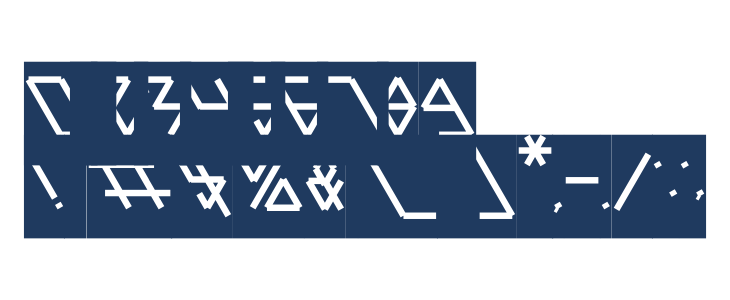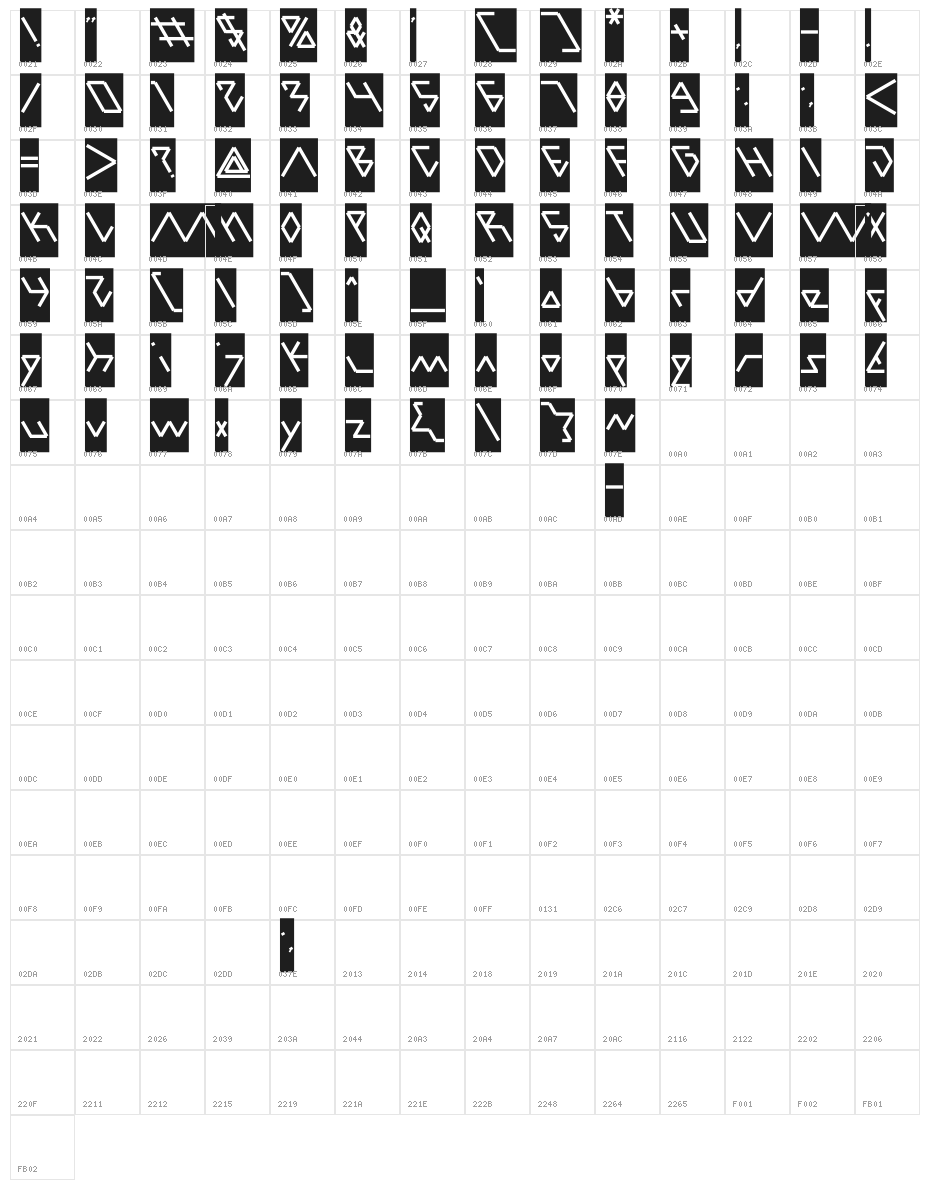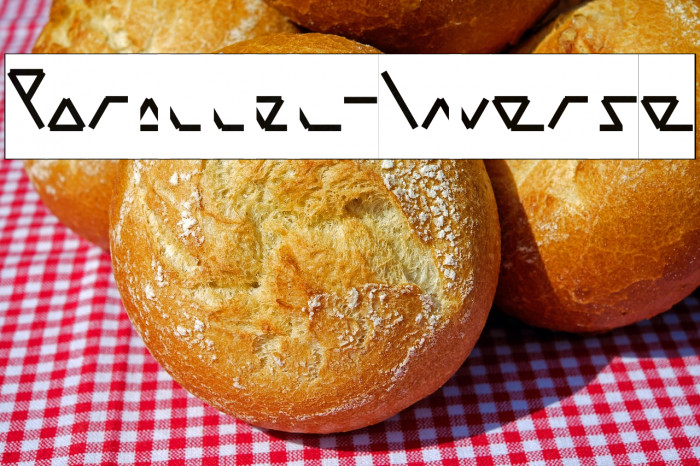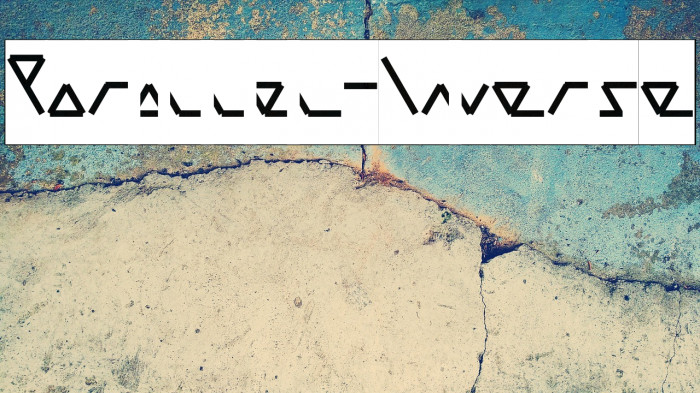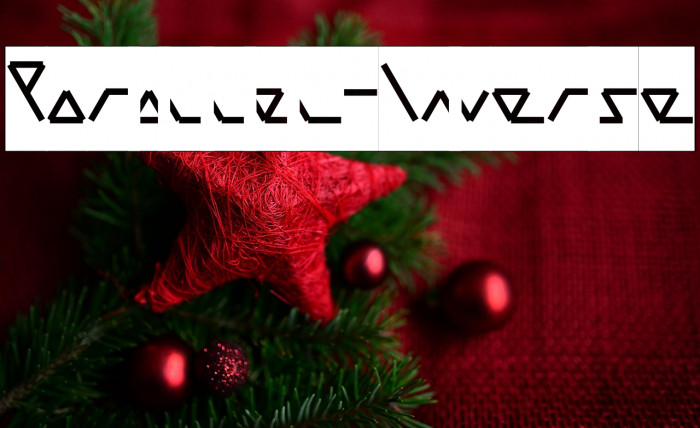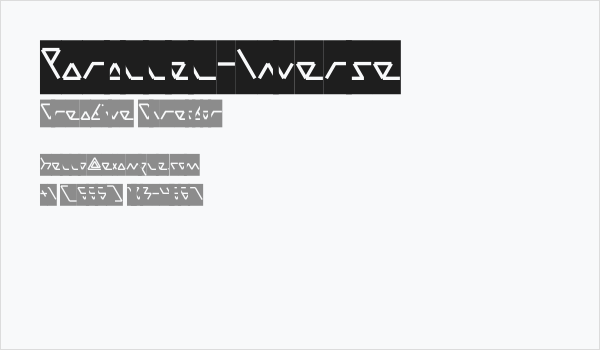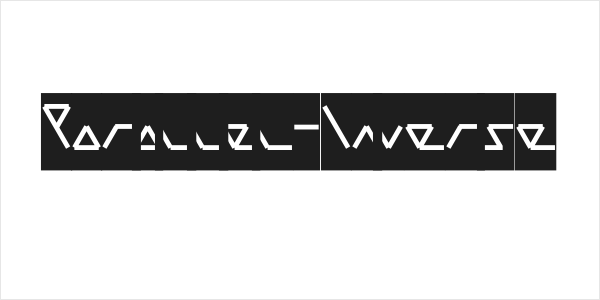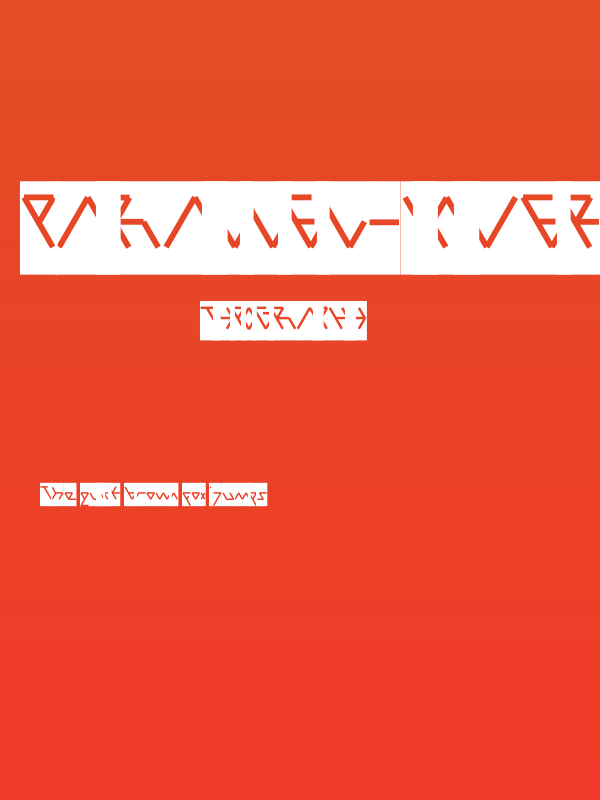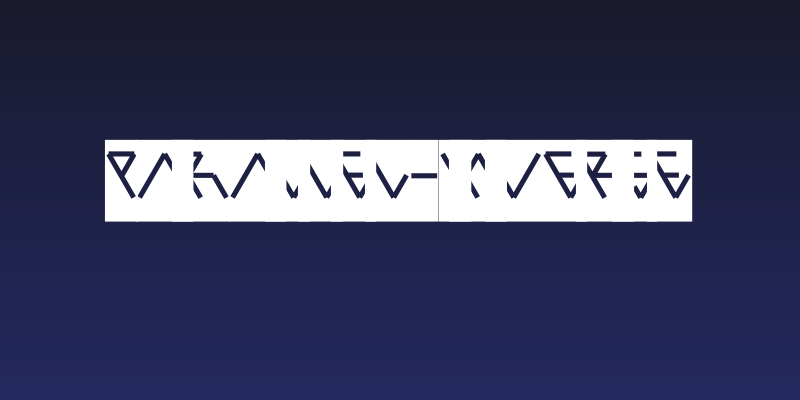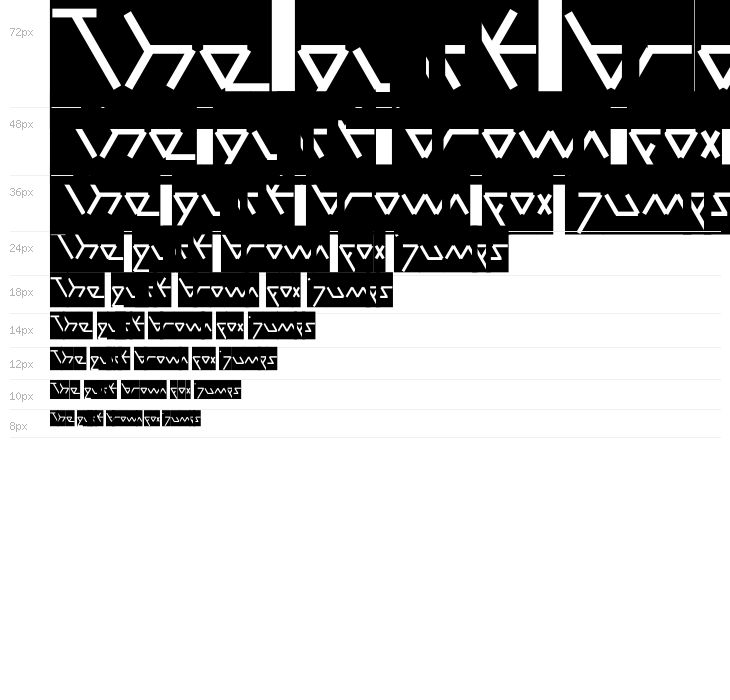
Parallel-Inverse Font
Parallel-Inverse Description
This font features a highly geometric and angular design, characterized by sharp, clean lines and a futuristic aesthetic. The letters are constructed with a series of parallel and inverse angles, creating a dynamic and visually striking appearance. Each character maintains a consistent angular theme, giving the font a cohesive and modern look. The uppercase and lowercase letters share similar design elements, ensuring uniformity across the typeface. Numbers and special characters are designed with the same angular precision, making them seamlessly integrate with the alphabet. This font's unique style makes it stand out, ideal for projects that require a bold and innovative visual impact.
| Proposed Projects | Ideal for sci-fi themed projects, modern branding, tech-related designs, and innovative advertising campaigns. |